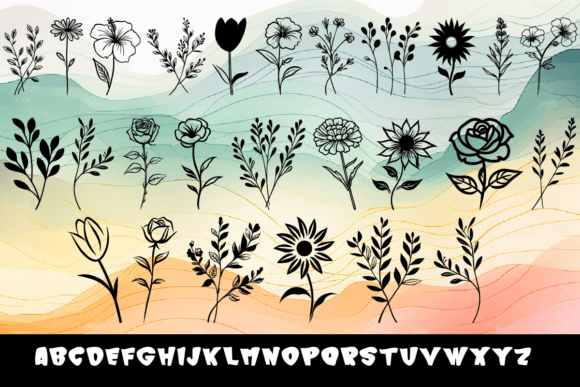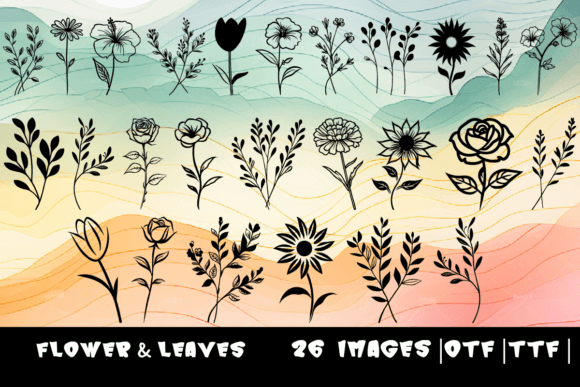
Introducing Flower & Leaves Font: Elevate Your Designs with Nature-Inspired Elegance
Are you looking for a unique and captivating way to add a touch of nature to your creative projects? Look no further than the Flower & Leaves Font, a delightful set of 26 floral and leafy dingbats that will transform your designs into stunning works of art. In this article, we’ll dive into the world of Flower & Leaves Dingbats, exploring its features, benefits, and uses, as well as provide tips on how to make the most of this beautiful font set.
What is Flower & Leaves Font?
Flower & Leaves Dingbats is a carefully crafted font set that features 26 unique designs, each corresponding to a letter from A to Z. These charming dingbats showcase a variety of floral and leafy motifs, perfect for adding a touch of elegance and sophistication to your designs. Whether you’re a designer, crafter, or DIY enthusiast, this font set is sure to inspire your creativity.
Key Features of Flower & Leaves Font
- 26 Unique Designs: Each letter from A to Z features a distinct floral or leafy design, offering a wide range of creative possibilities.
- Nature-Inspired: The floral and leafy designs evoke a sense of nature and serenity, perfect for projects that require a touch of elegance.
Benefits of Using Flower & Leaves Font
So, why choose Flower & Leaves Font for your creative projects? Here are just a few benefits of using this beautiful font set:
- Add a Touch of Nature: Bring the outdoors in with the Flower & Leaves Font, perfect for projects that require a natural and earthy feel.
- Enhance Your Designs: The unique and charming designs will elevate your projects, making them stand out from the crowd.
- Versatile: The font set is suitable for a wide range of applications, from stationery and invitations to branding and packaging.
- Time-Saving: With 26 pre-designed dingbats, you’ll save time and effort in creating your own custom designs.
How to Use Flower & Leaves Font
Using Flower & Leaves Font is easy and straightforward. Here are a few tips to get you started:
- Choose Your Design: Browse through the 26 dingbats and select the ones that best fit your project.
- Customize: Experiment with different colors, sizes, and arrangements to create unique and personalized designs.
Flower & Leaves Font is an ideal choice for designers and crafters looking to add a touch of nature to their projects. Whether you’re creating:
- Stationery and Invitations: Add a touch of elegance to your cards and invitations with the Flower & Leaves Font.
- Branding and Packaging: Use the font set to create unique and memorable brand identities.
- DIY Crafts: Add a personal touch to your handmade crafts, from scrapbooking to woodworking.